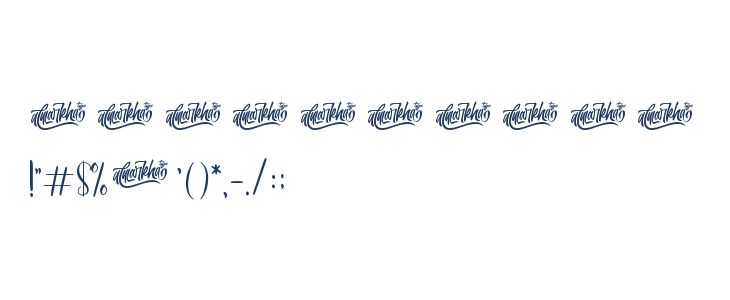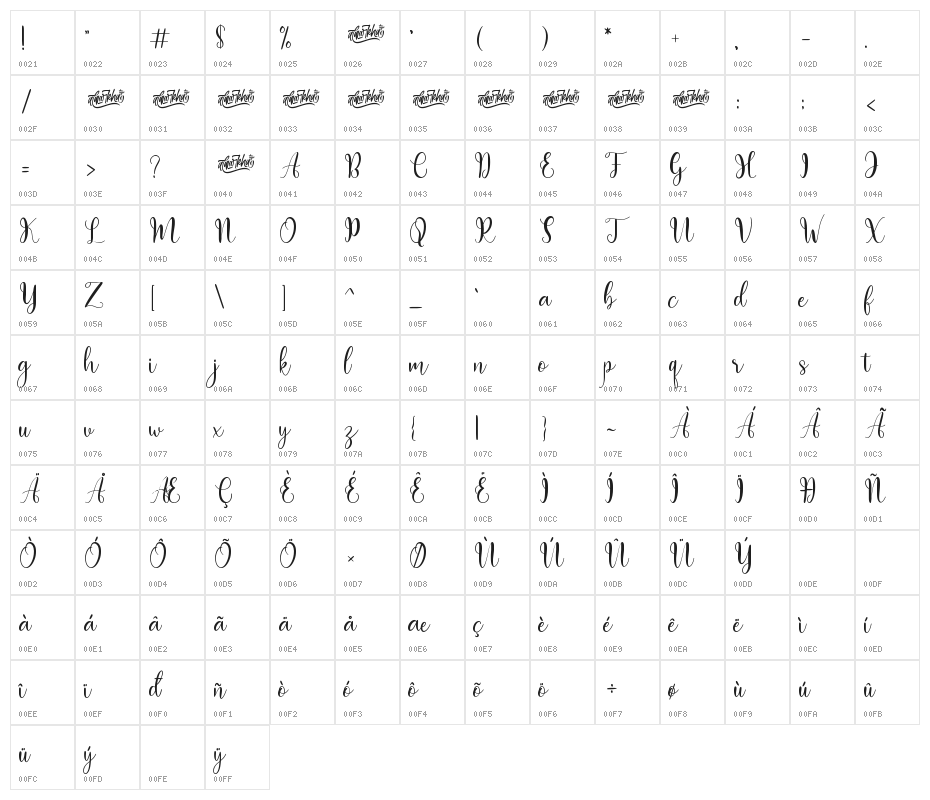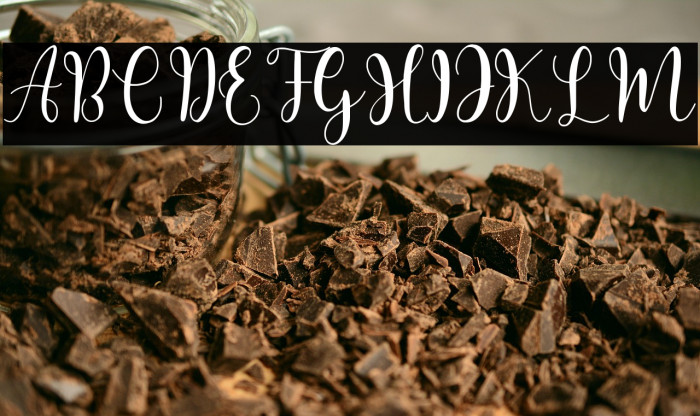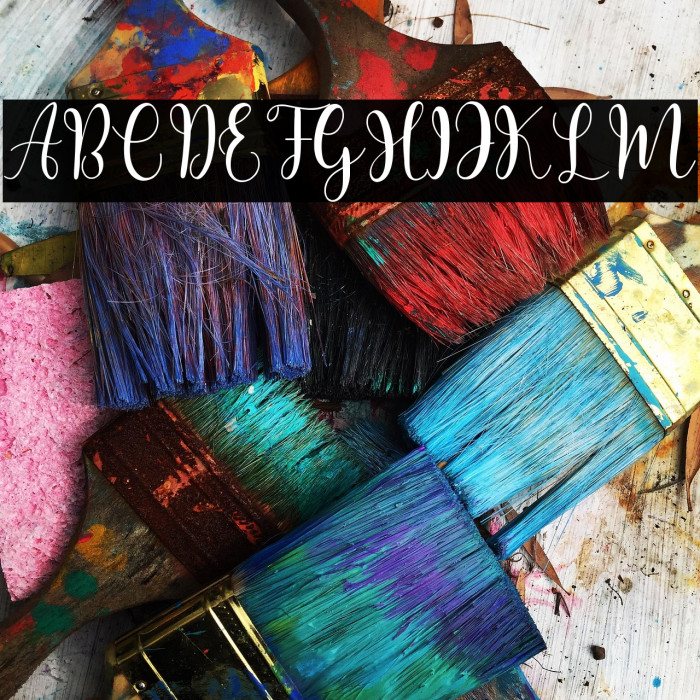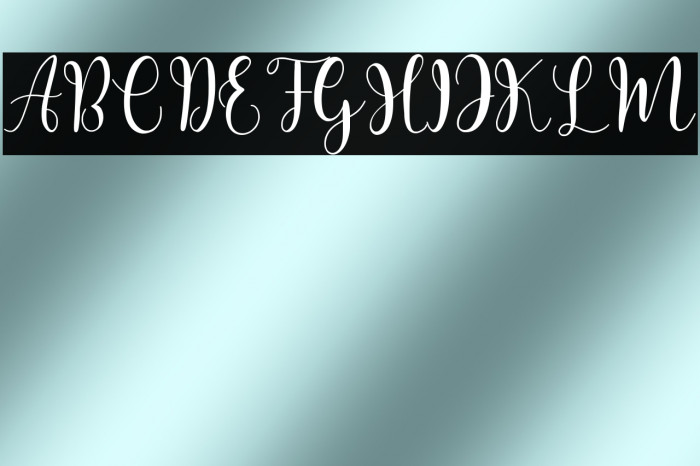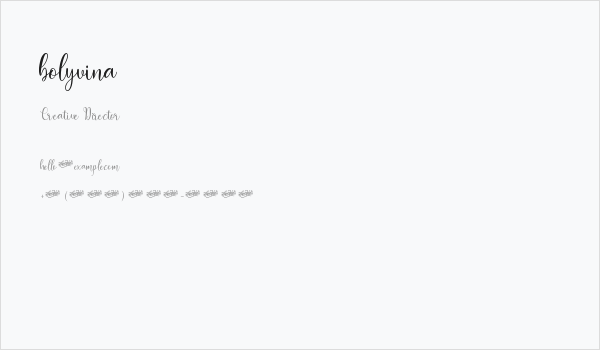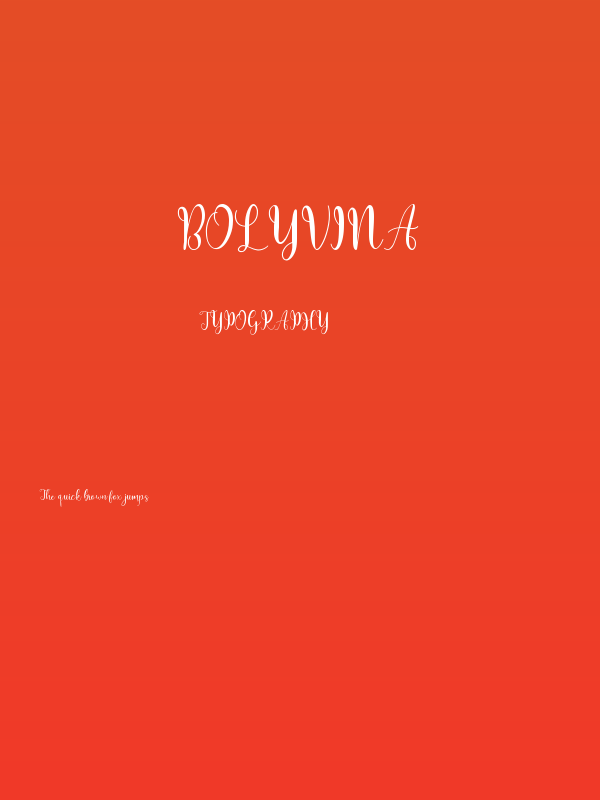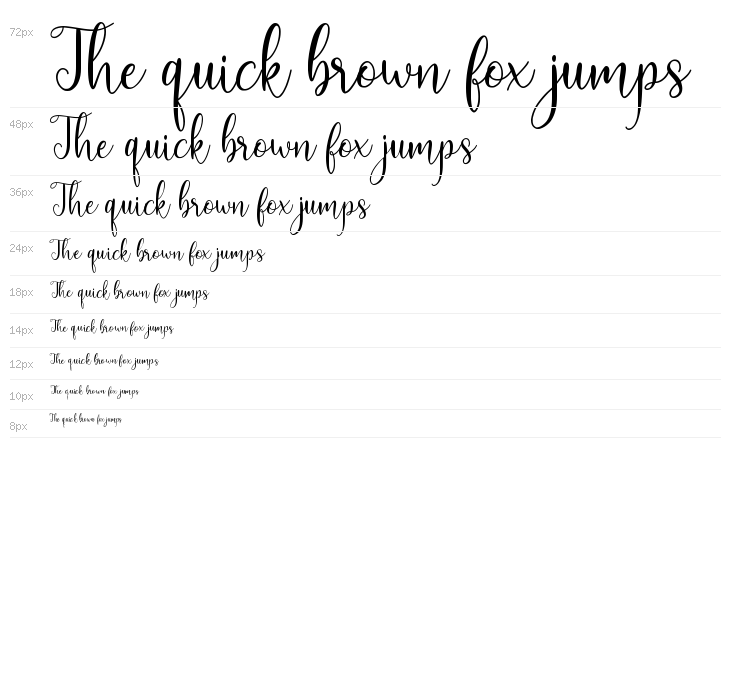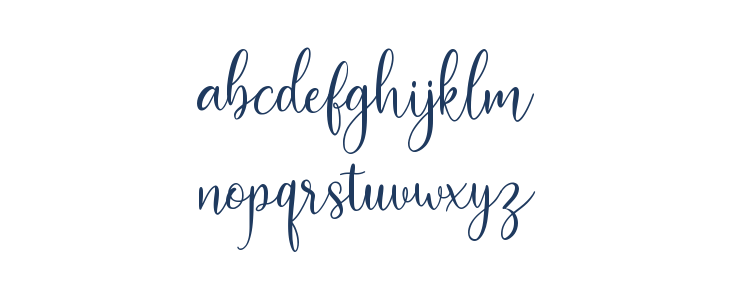
bolyvina Font
bolyvina Description
This font features an elegant and flowing script style, characterized by its smooth, cursive lines and graceful curves. The uppercase letters are ornate, with flourishes that add a touch of sophistication, while the lowercase letters maintain a consistent, flowing rhythm. The numerals and special characters are designed to complement the overall aesthetic, offering a cohesive look across all characters. This font exudes a sense of elegance and refinement, making it ideal for projects that require a touch of class and style.
| Overall Style | Elegant, Decorative |
| Proposed Projects | Ideal for wedding invitations, luxury branding, greeting cards, and elegant logo designs. |